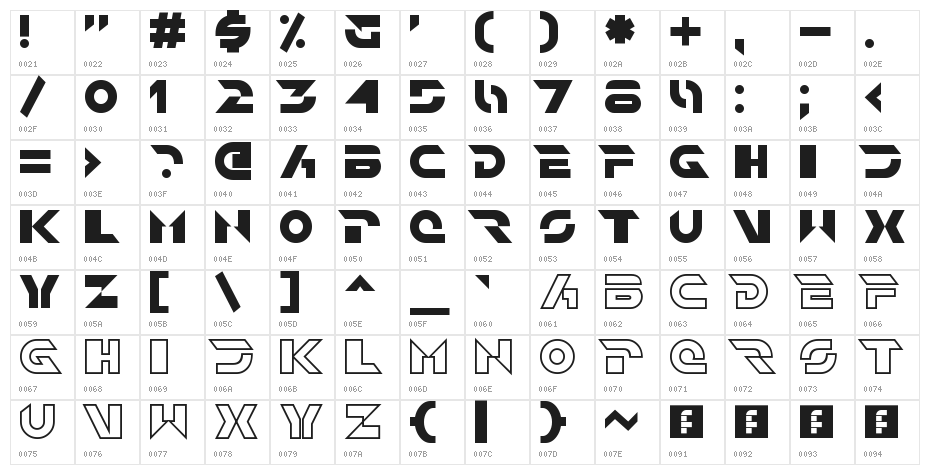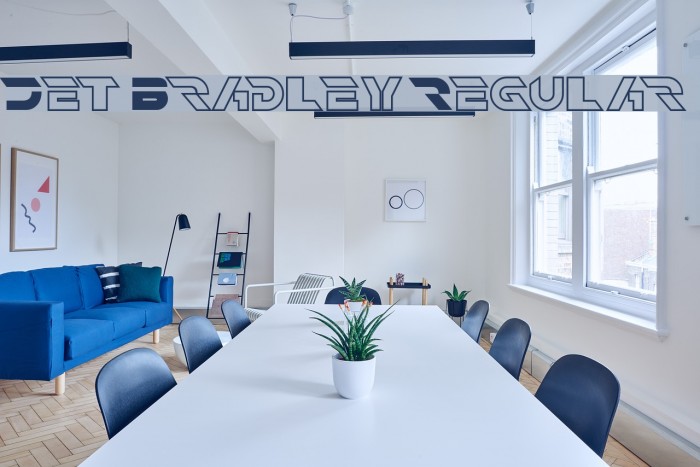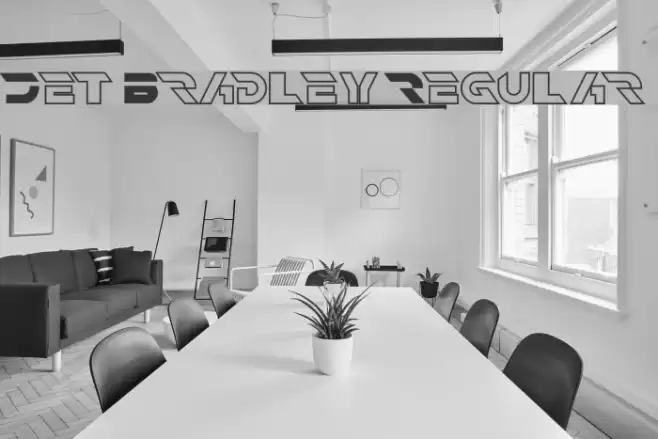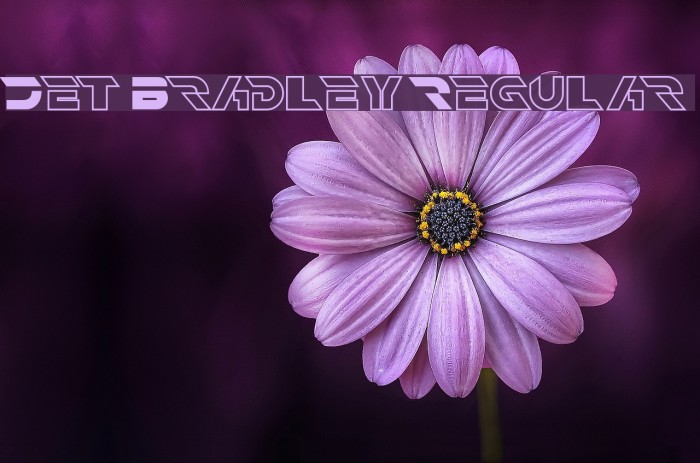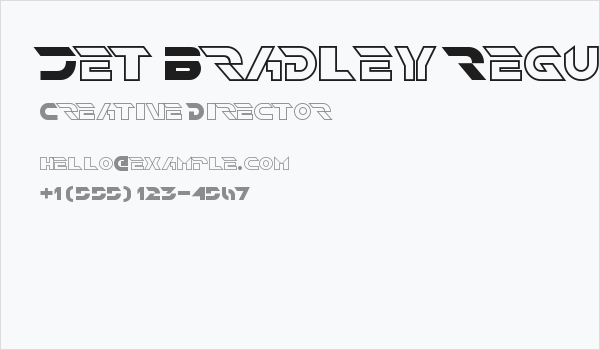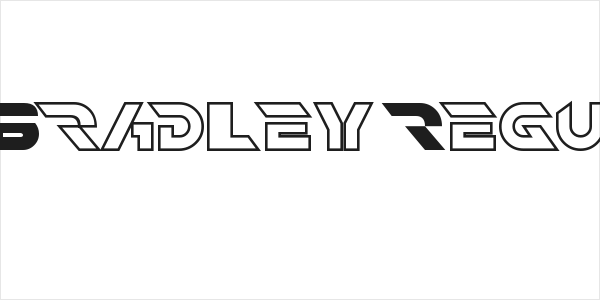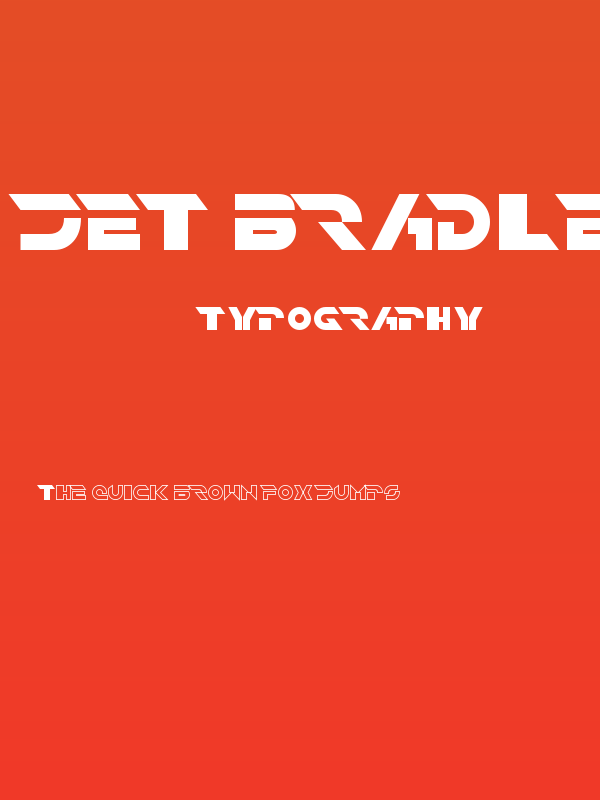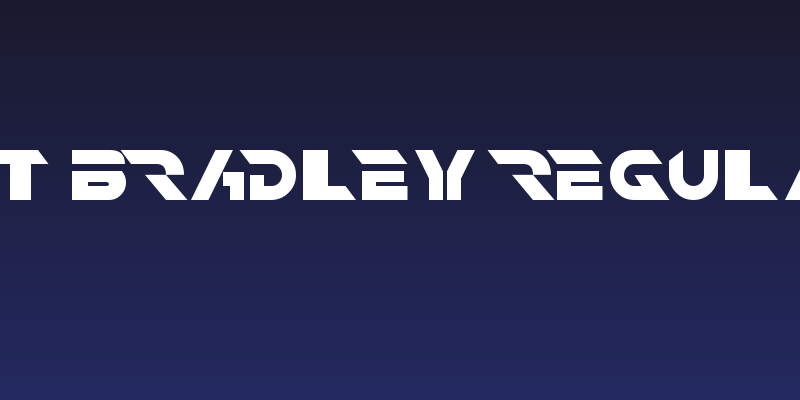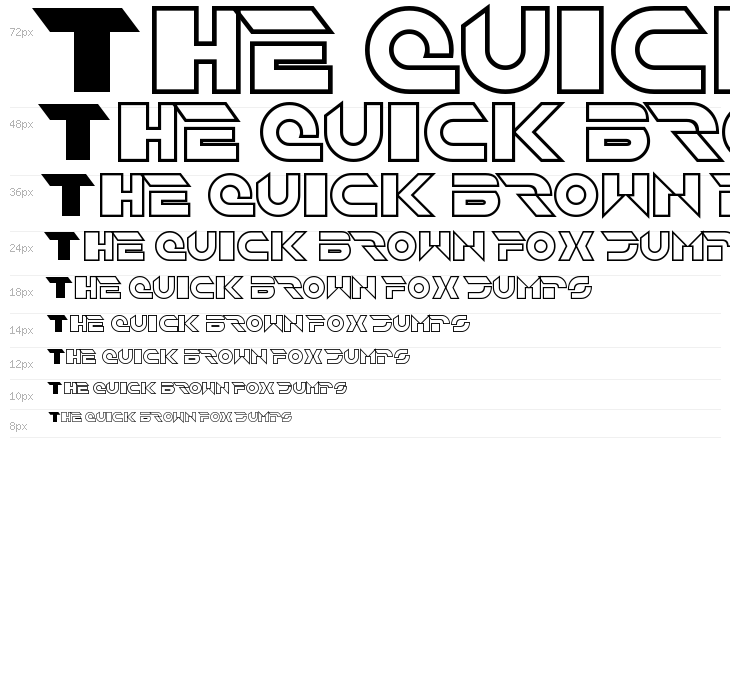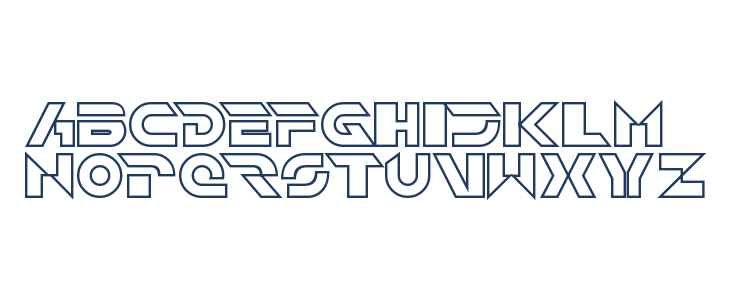
Jet Bradley Regular Font
Jet Bradley Regular Description
This font features a bold, futuristic design with geometric shapes and sharp angles. The uppercase letters are characterized by their solid, block-like appearance, while the lowercase letters maintain a consistent style with a slightly more open structure. The numbers are equally bold and follow the same geometric theme, making them highly legible. Special characters are designed to match the overall aesthetic, ensuring a cohesive look across all glyphs. The font's unique style makes it stand out, with a modern and edgy feel that is perfect for attention-grabbing designs.